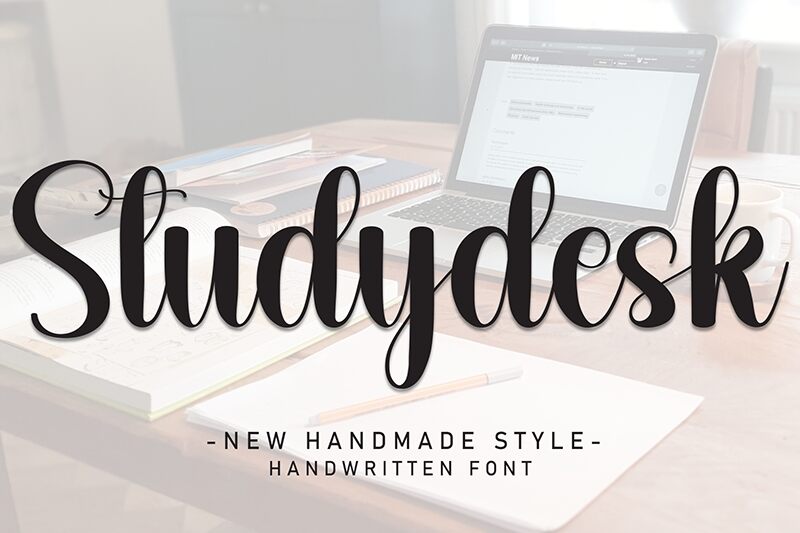
Studydesk
Studydesk font by Andi Moz is a free calligraphy font with an elegant and sophisticated style. Its flowing, cursive design makes it gracefully display messages that it carries. It is slightly inspired by classic fonts; however, its modern appearance allows it to blend in with current design trends.
Use this typeface for logos, special announcements, banners, signage, social media posts, stationery sets, branding projects, packaging designs of all kinds and sizes.